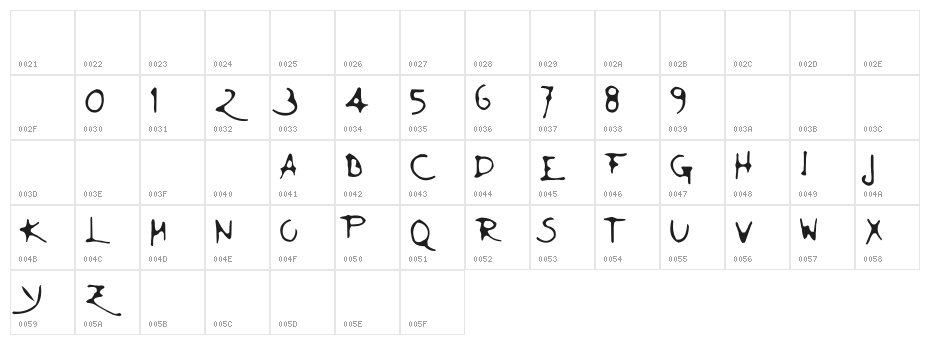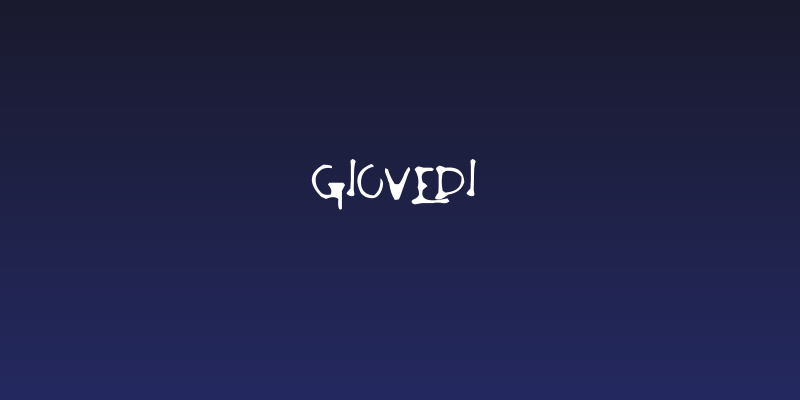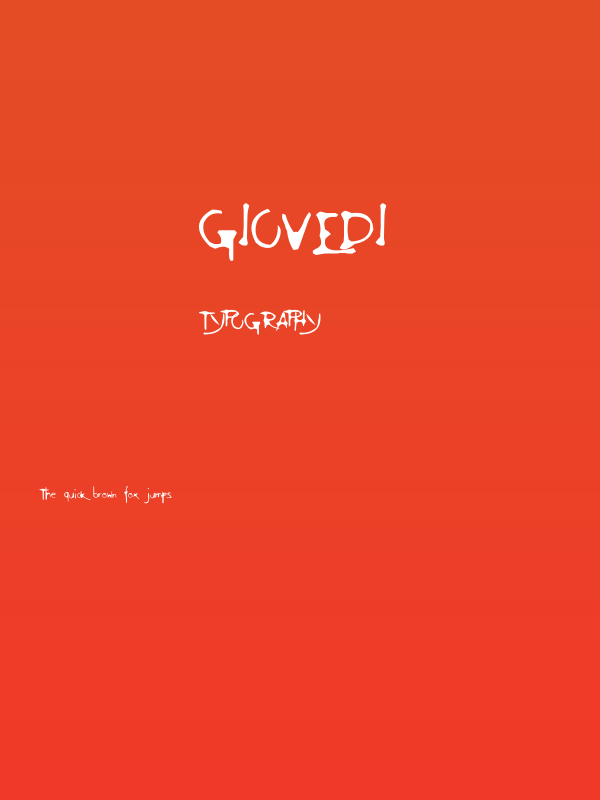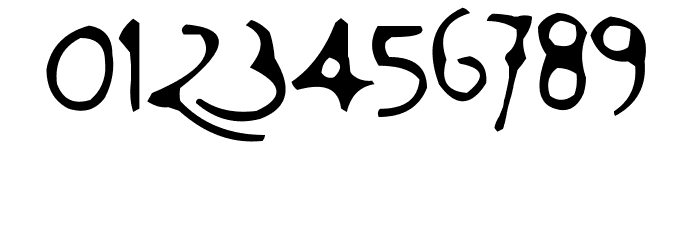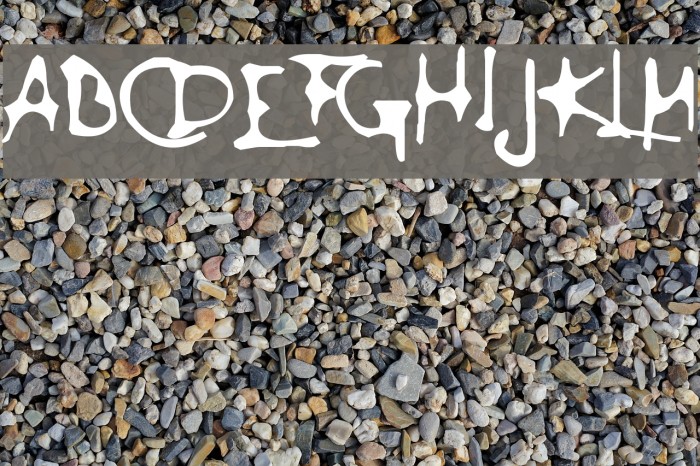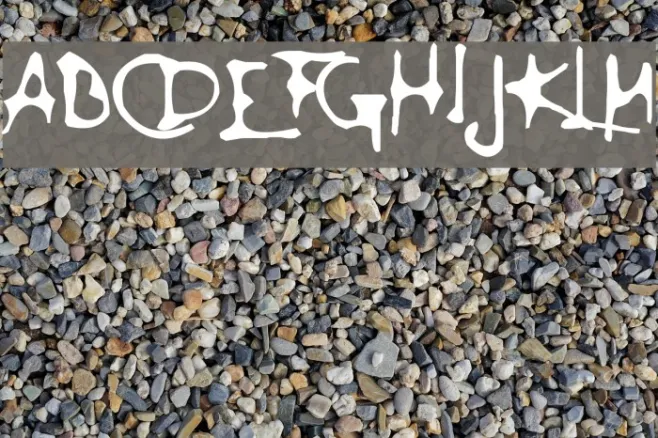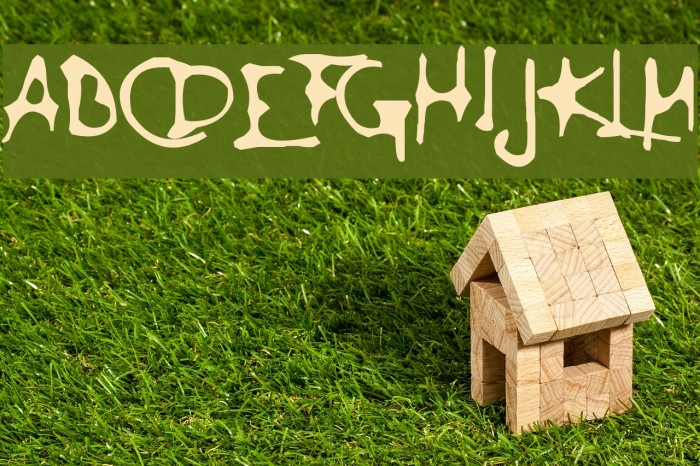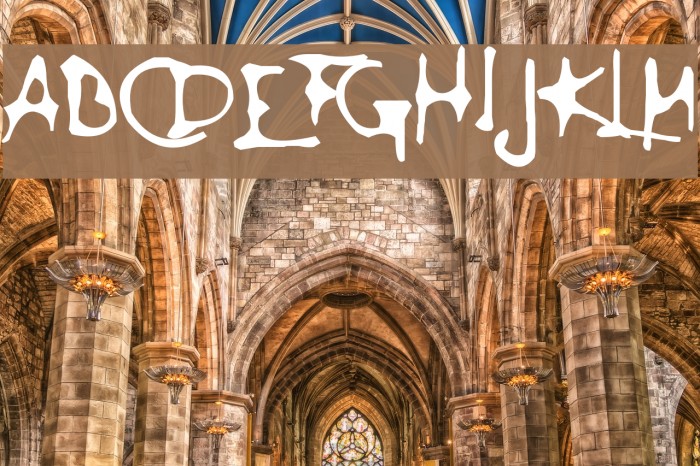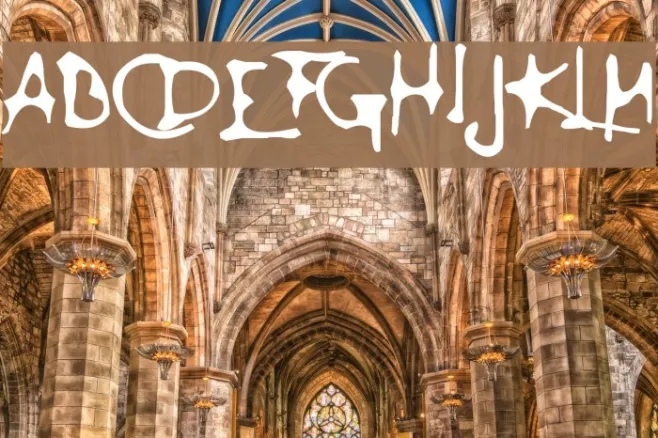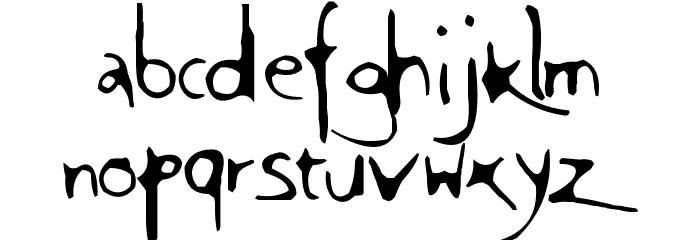
Giovedi Font
Giovedi Description
This font features a highly decorative and artistic style, characterized by its unique and irregular shapes. The letters have a hand-drawn appearance with varying stroke thickness, giving it a dynamic and expressive look. The uppercase letters are bold and striking, with sharp angles and curves that create a sense of movement. The lowercase letters maintain the same artistic flair, with some characters featuring elongated tails and exaggerated forms. The numbers are equally distinctive, with a playful and creative design that complements the overall style. This font is perfect for projects that require a bold and artistic touch, such as posters, album covers, or any creative design work.
| Proposed Projects | Ideal for posters, album covers, artistic projects, and creative design work. |